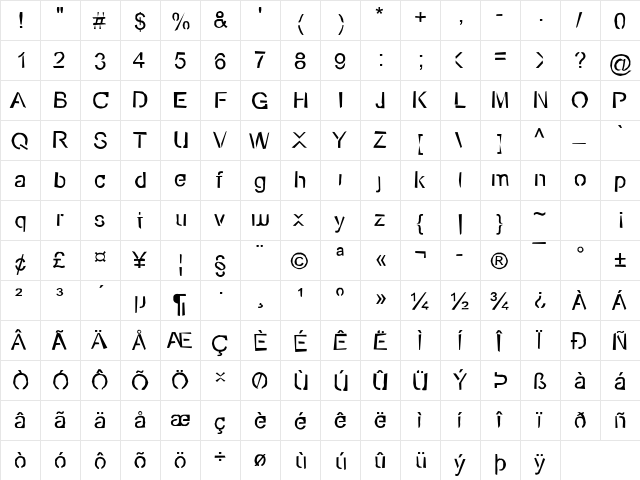
Eco-Files Rough Rough
Design Context for Eco-Files Rough Typeface
Eco-Files Rough embraces imperfection — its rough, textured character adds raw authenticity to designs that want to feel lived-in and unconventional.
A strong fit for alternative music projects, graffiti-adjacent design, and anything that deliberately resists polish.
Pro Tip: Use Eco-Files Rough at larger sizes where the texture and irregularity of each letterform can be clearly seen — it loses its character at small sizes.